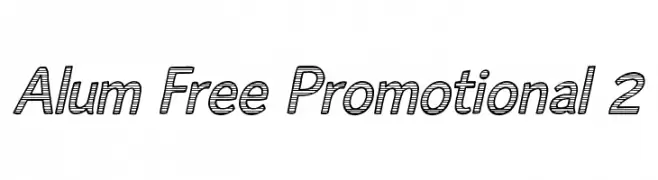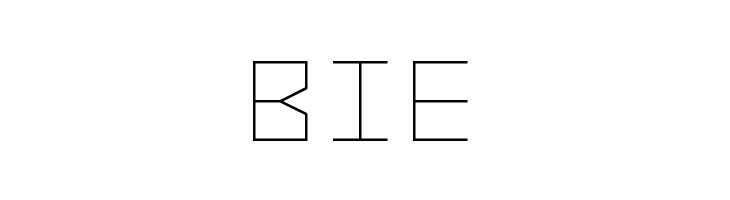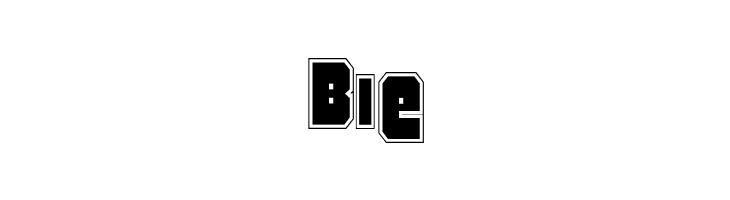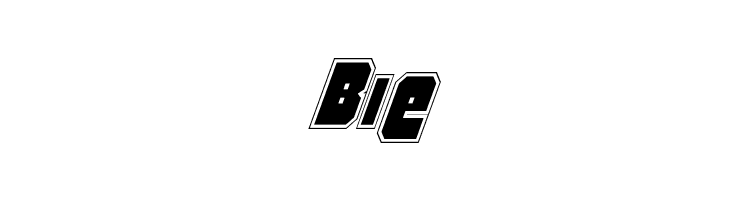
• Alpha Prota
A geometric, minimalist font with thin lines and angular shapes, perfect for modern designs.
• Alpha Taurus Pro
A bold, geometric font with outlined characters for a striking visual impact.
• Alpha Taurus Pro Italic
Bold, italicized font with a geometric, three-dimensional style.
• Alphahate
A dynamic, brush-stroke font with an edgy and expressive style.
• Already Book
A modern, elongated font with narrow characters and a sleek design.
• Already Book Italic
A modern, narrow, and slightly italic font with a retro touch.
• Already Italic
A bold, decorative font with a 3D shadow effect, perfect for eye-catching designs.
• Already Regular
A bold, three-dimensional font with a modern geometric style.
• Alum Free Promotional 2
A decorative, striped font with a dynamic and textured appearance.
• AlumFreePromotional
A decorative font with striped patterns, offering a playful and dynamic look.